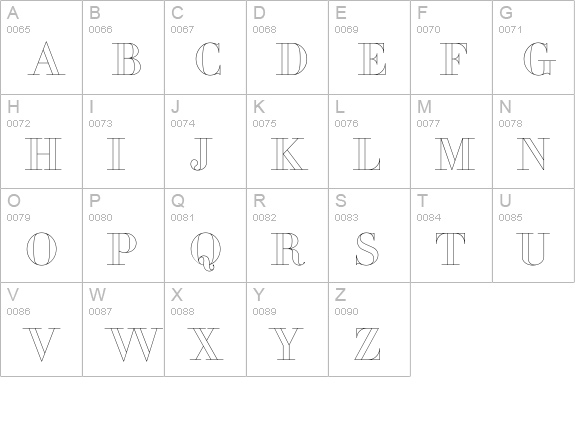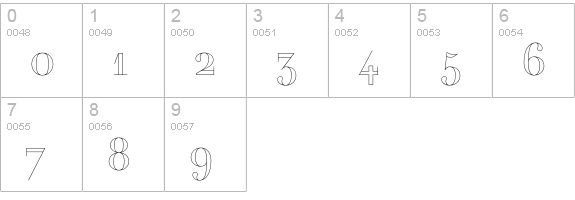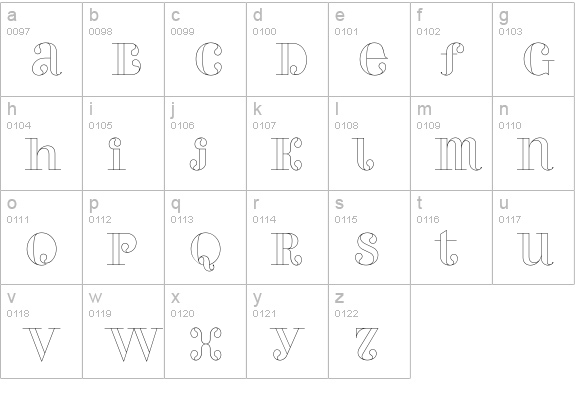
PerlaAlternate Outline Font Details
PerlaAlternate Outline font is a stunning display typeface that will add a touch of elegance and sophistication to any project. Its unique and intricate outlines make it perfect for headlines, logos, and branding materials. With its clean lines and modern aesthetic, this font is sure to make a lasting impression. What sets PerlaAlternate Outline font apart is not only its exceptional design but also its availability for free. Yes, you read it right! This beautiful font can be freely downloaded from FontsMarket.com, allowing you to enhance your creative projects without any cost. Whether you are a professional designer or an aspiring artist, PerlaAlternate Outline font offers endless possibilities for your typography needs. Its versatility makes it suitable for a wide range of applications, from posters and flyers to websites and social media graphics. With its bold and eye-catching appearance, PerlaAlternate Outline font will effortlessly capture the attention of your audience. Its stylish letterforms and intricate details create a sense of sophistication and craftsmanship that is unparalleled. Don't miss out on the opportunity to elevate your designs with PerlaAlternate Outline font. Download it for free today from FontsMarket.com and explore the endless possibilities it offers. Let your creativity soar with this exceptional typeface that will make your projects stand out from the crowd.